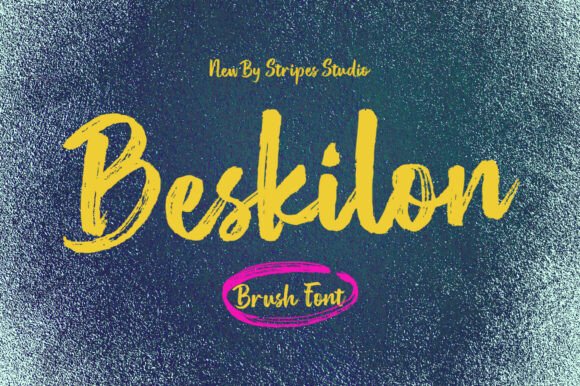
The Quest for the Perfect Hand-Brushed Script: Discovering Beskilon Font
I still remember the design project that led me to Beskilon Font. I was working on a wedding invitation for a dear friend, and I wanted to create a title that felt both elegant and playful. I scoured the internet for the perfect hand-brushed script, but nothing seemed quite right – until I stumbled upon Beskilon Brush. Its quirky style and detailed brush stroke texture immediately caught my eye, and I knew I had found the one.
An Honest Review of Beskilon Brush
- 💫 Unique, hand-brushed texture that adds a personal touch to any design
- ✅ Highly versatile and suitable for various purposes, such as titles, signatures, and logos
- 🎨 Quirky style that’s perfect for creative projects and designs that need a bit of personality
- 🔍 Detailed brush stroke texture that gives the font a realistic, hand-crafted feel
While Beskilon Brush is an amazing font, it’s not without its quirks. For example, the font can be a bit tricky to read at smaller sizes, so it’s best used for headlines or titles rather than body text. Additionally, some users may find the brush stroke texture a bit too prominent, which can make the text harder to read.
Another limitation is that Beskilon Brush doesn’t come with a built-in italic version, so you’ll need to rely on oblique or manually italicized versions if you need an italic style.
- Experiment with OpenType features, such as stylistic alternates and glyphs, to add more personality to your text.
The Designer Inspiration Behind Beskilon Brush
Beskilon Brush was designed with the intention of creating a font that felt both casual and artistic. The designer wanted to capture the imperfections and uniqueness of hand-brushed lettering, while still maintaining a level of legibility and sophistication. The result is a font that’s perfect for designers, crafters, and creative hobbyists who want to add a personal touch to their designs.
| Font Name | Beskilon Font |
| Author | Stripes Studio |
| What is Beskilon Brush best used for? | Beskilon Brush is a versatile font that can be used for various purposes, such as titles, signatures, letterheads, signage, labels, newsletters, posters, logos, correspondence, wedding invitations, badges, and more. |
| Is Beskilon Brush suitable for body text? | While Beskilon Brush can be used for body text, it’s best suited for headlines or titles due to its unique texture and quirky style. |
| Does Beskilon Brush come with a variety of OpenType features? | Yes, Beskilon Brush comes with a range of OpenType features, including stylistic alternates and glyphs, which can be used to add more personality to your designs. |